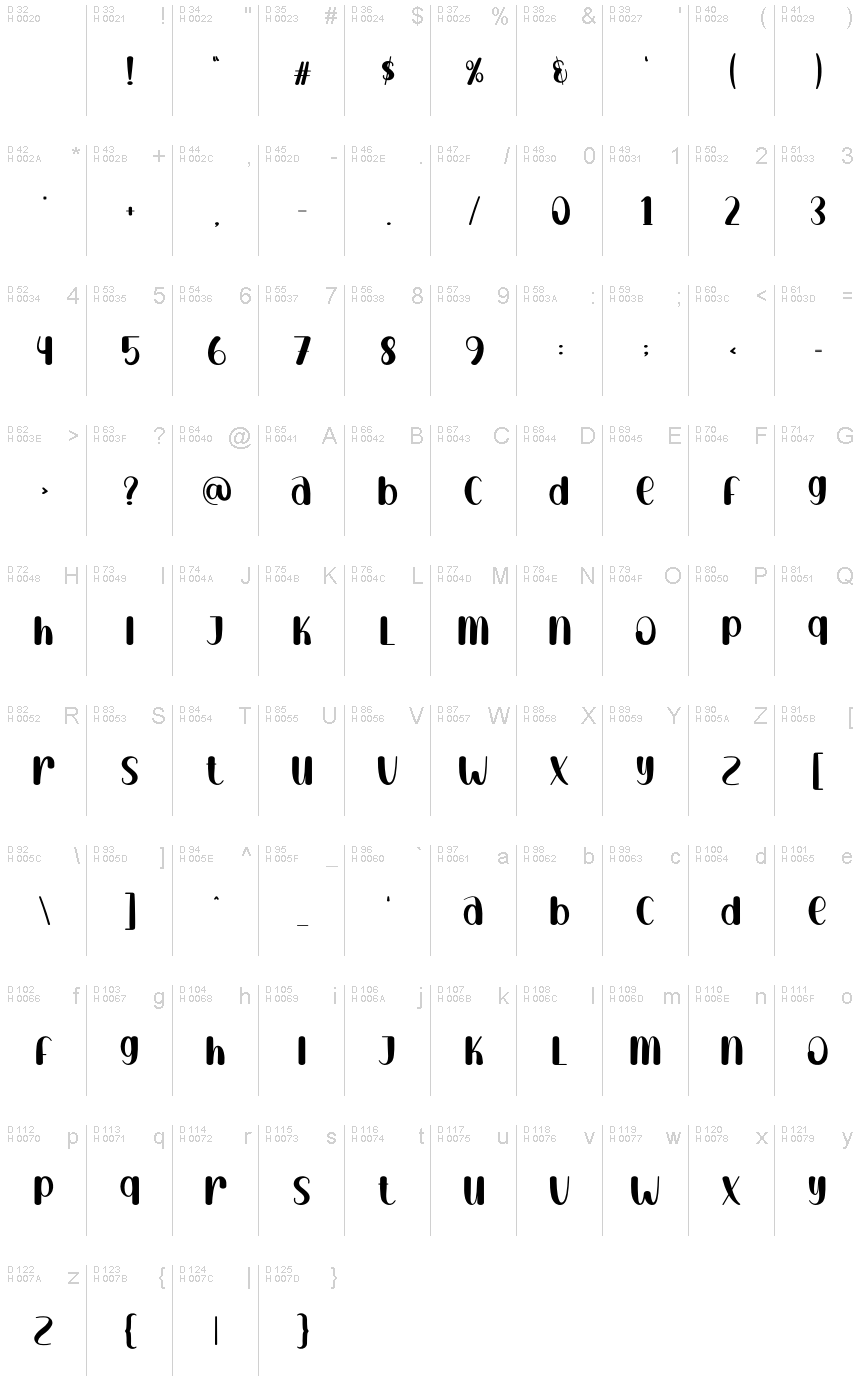
Home Display
Home Display radiates charm and warmth with its playful handwritten style, designed by Andi Moz. This bold font captivates with its curvaceous letters that dance across the page, evoking a sense of joy and friendliness. Each character is imbued with a unique personality, making it perfect for adding a whimsical touch to any project.
Ideal for wedding invitations, greeting cards, or any design seeking an inviting flair, Home Display's appealing aesthetics create an instant connection. The distinctiveness of its exuberant curves ensures your messages will stand out and resonate. Its friendly vibe makes it versatile enough to enhance both personal projects and creative brand identities alike. Embrace the delightful essence of Home Display for all your crafting adventures!